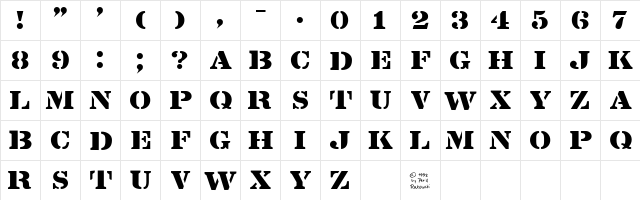
Lintsec Regular
Design Context for Lintsec Typeface
Lintsec takes a measured approach to typography — its balanced proportions and neutral character make it a reliable workhorse for both digital and print work.